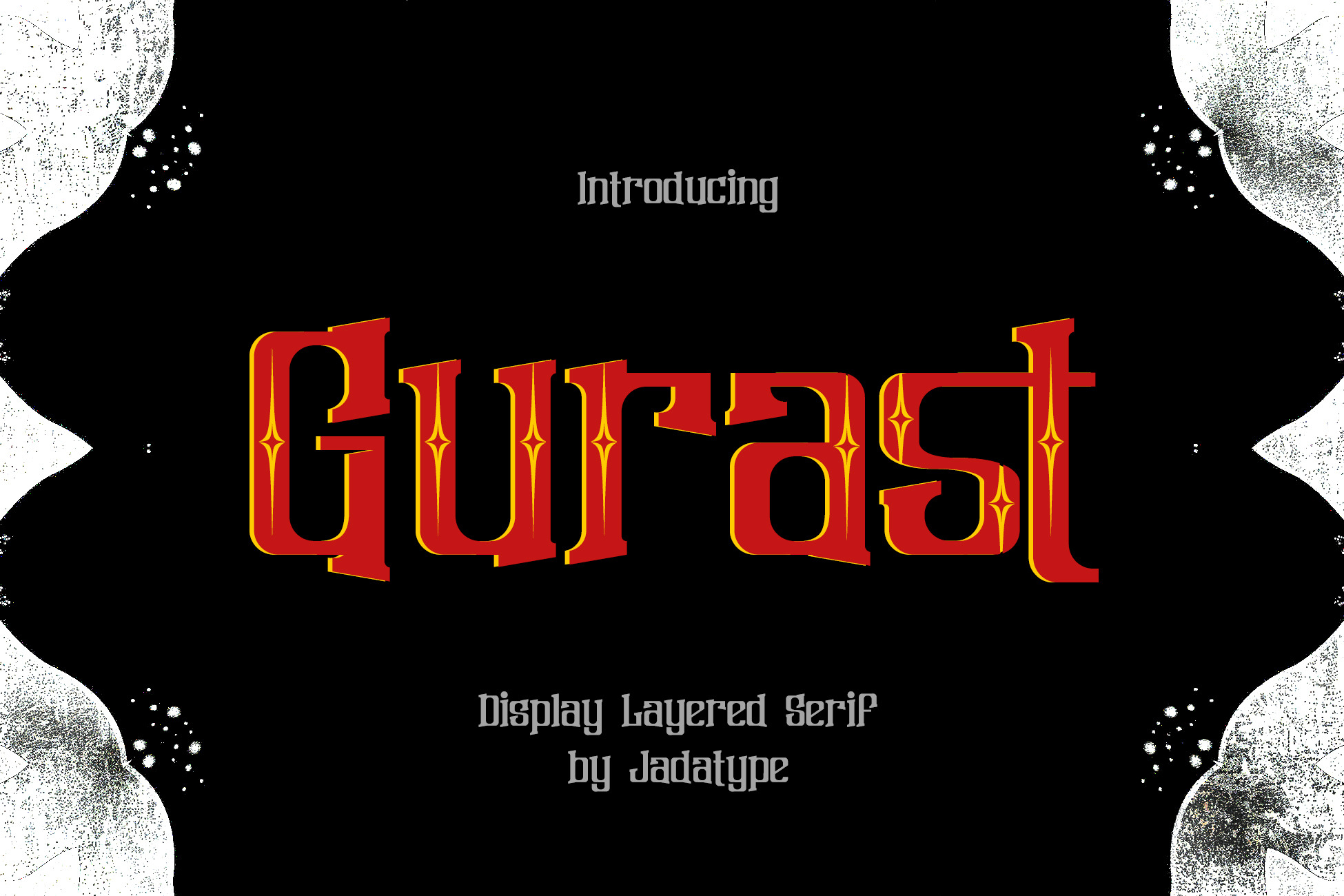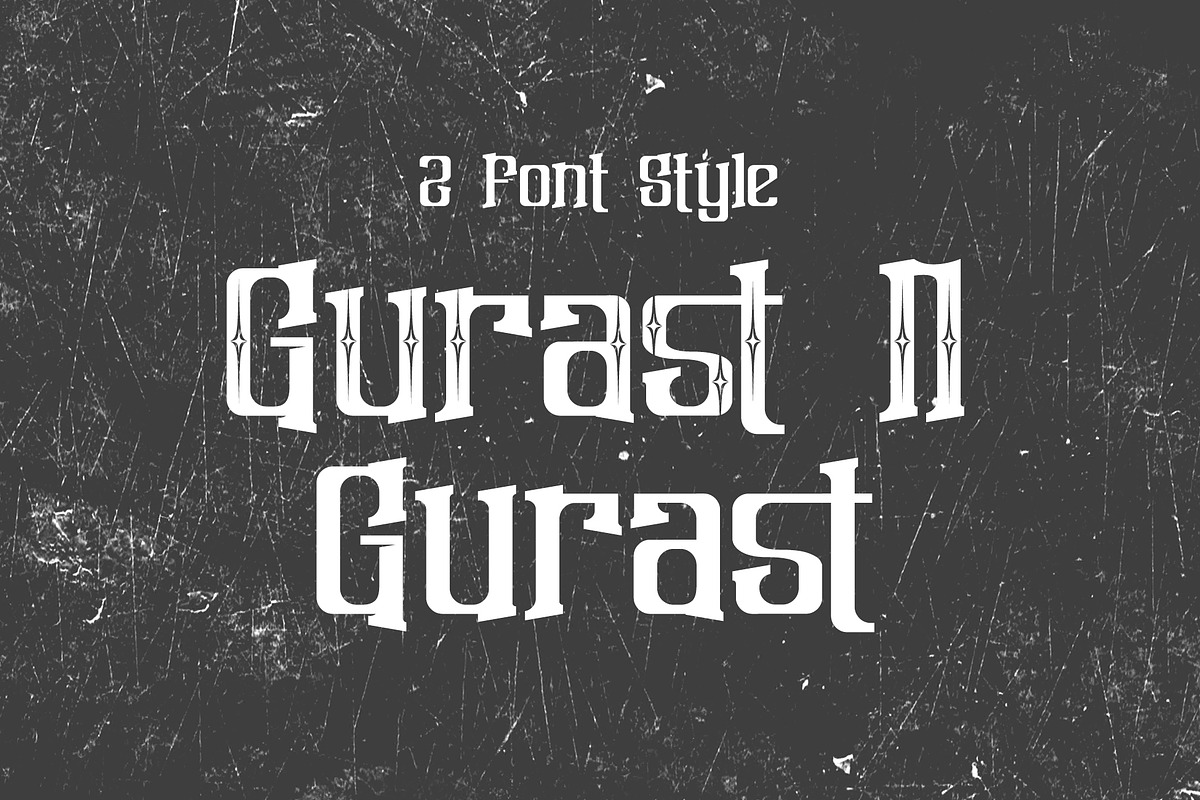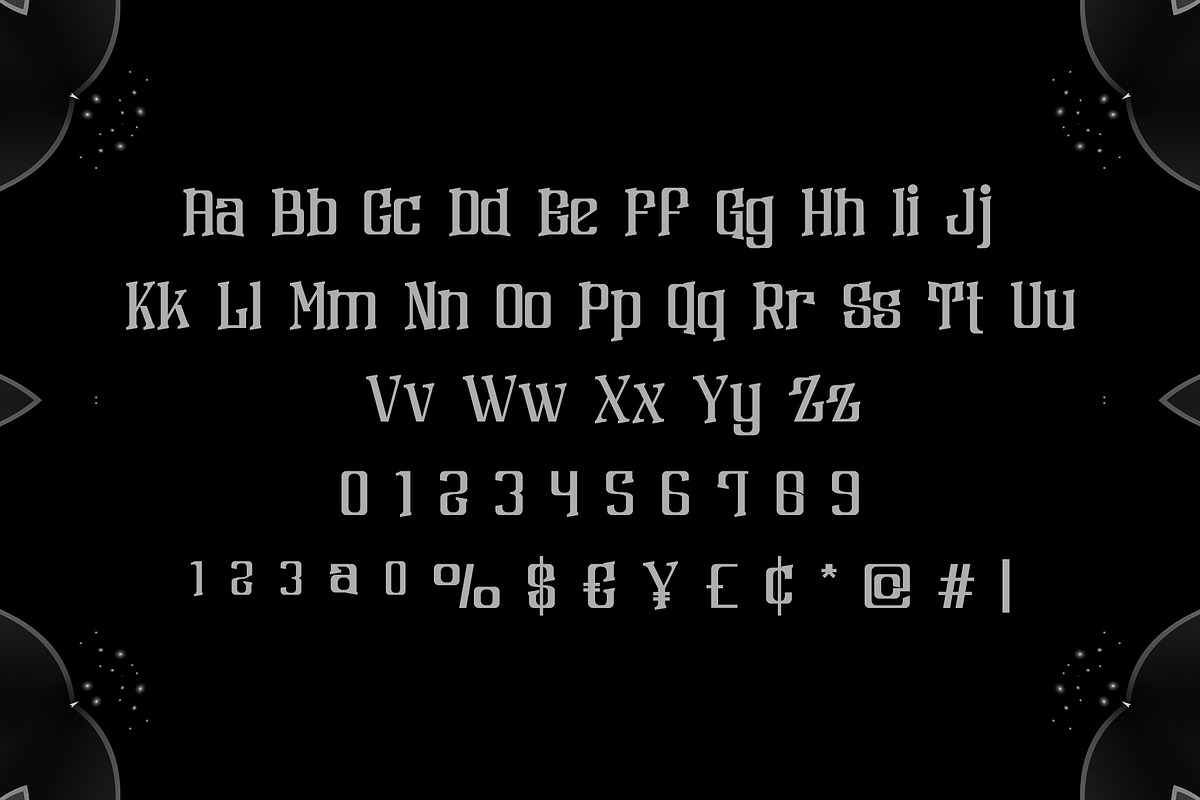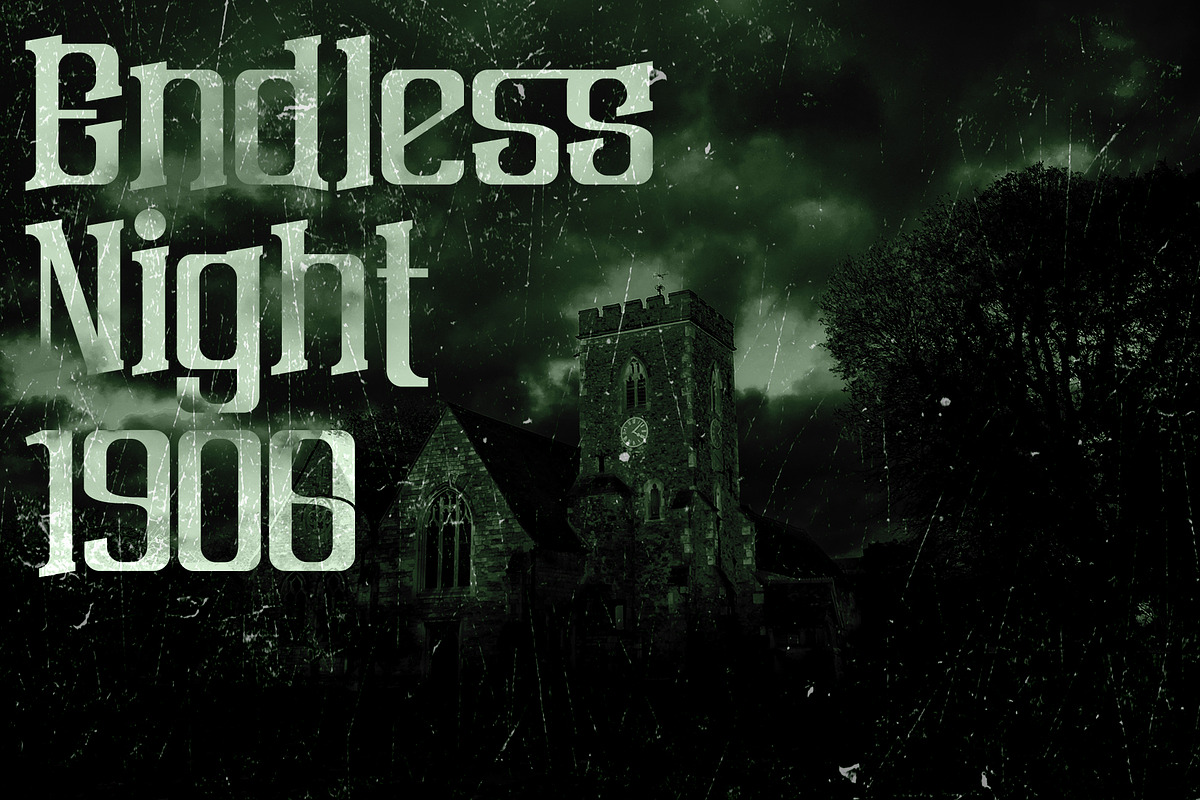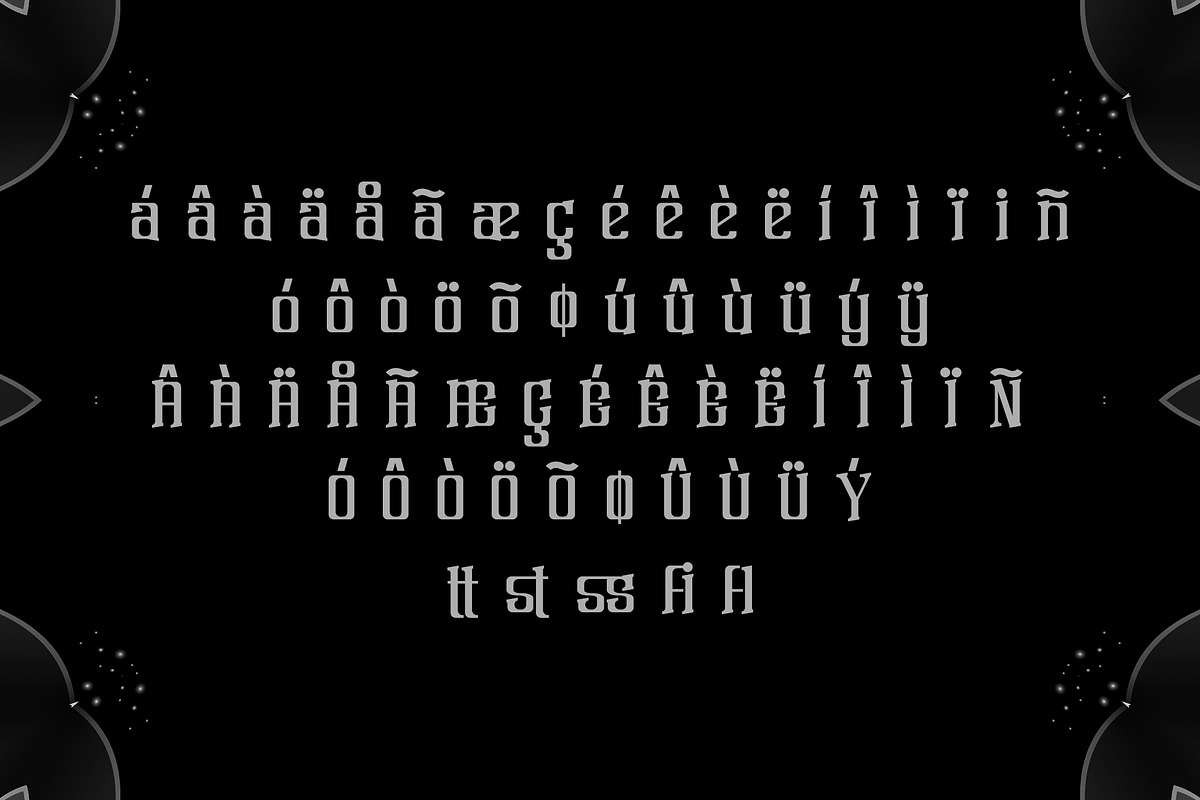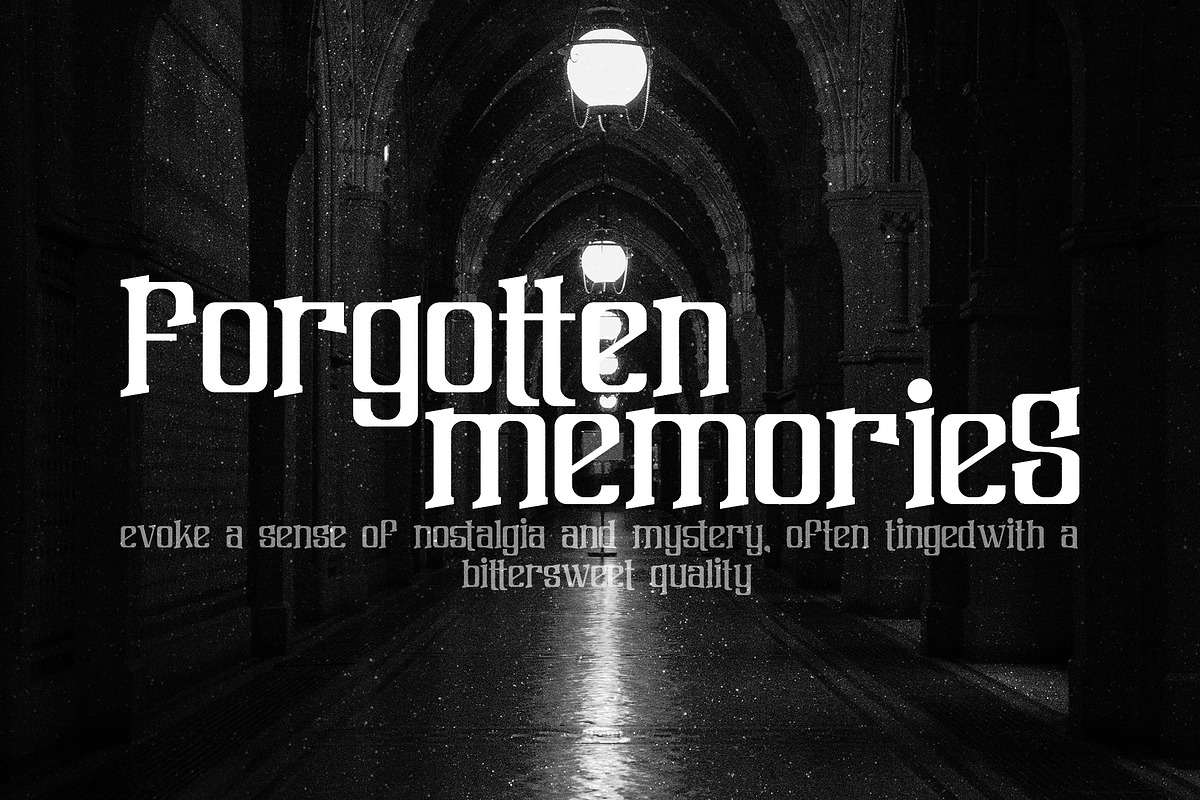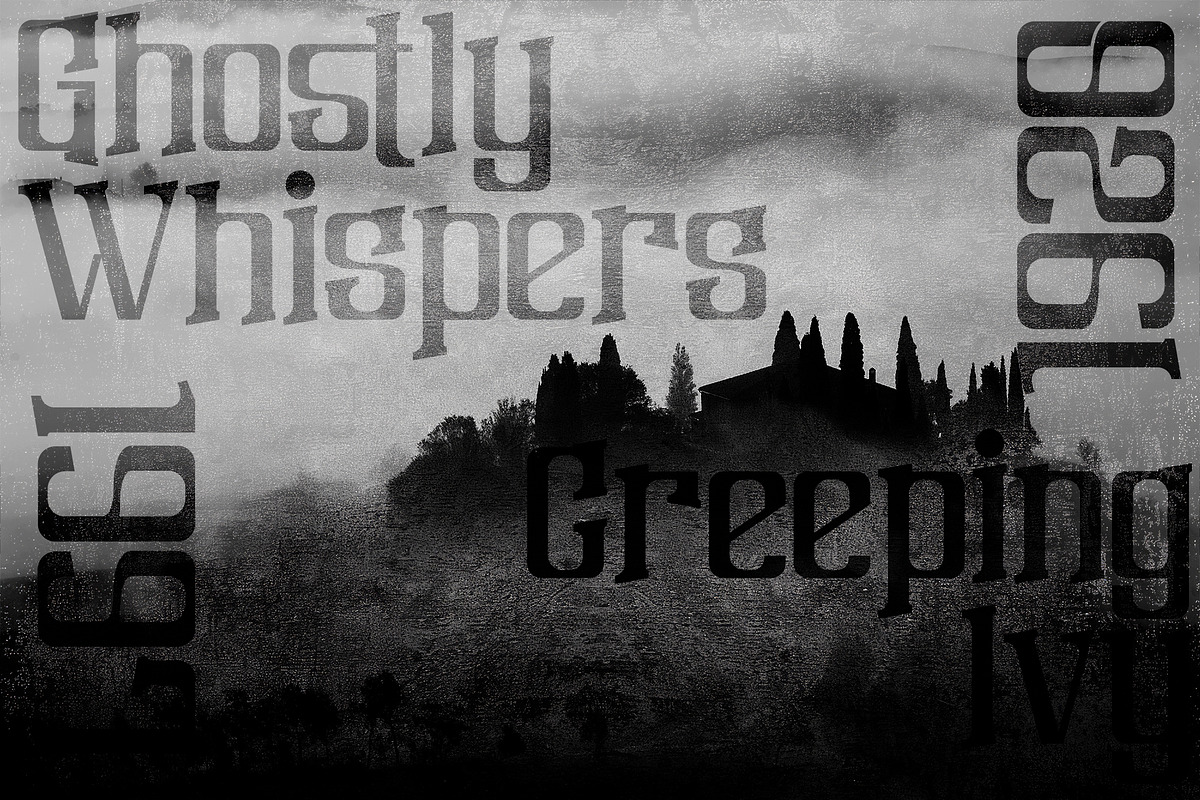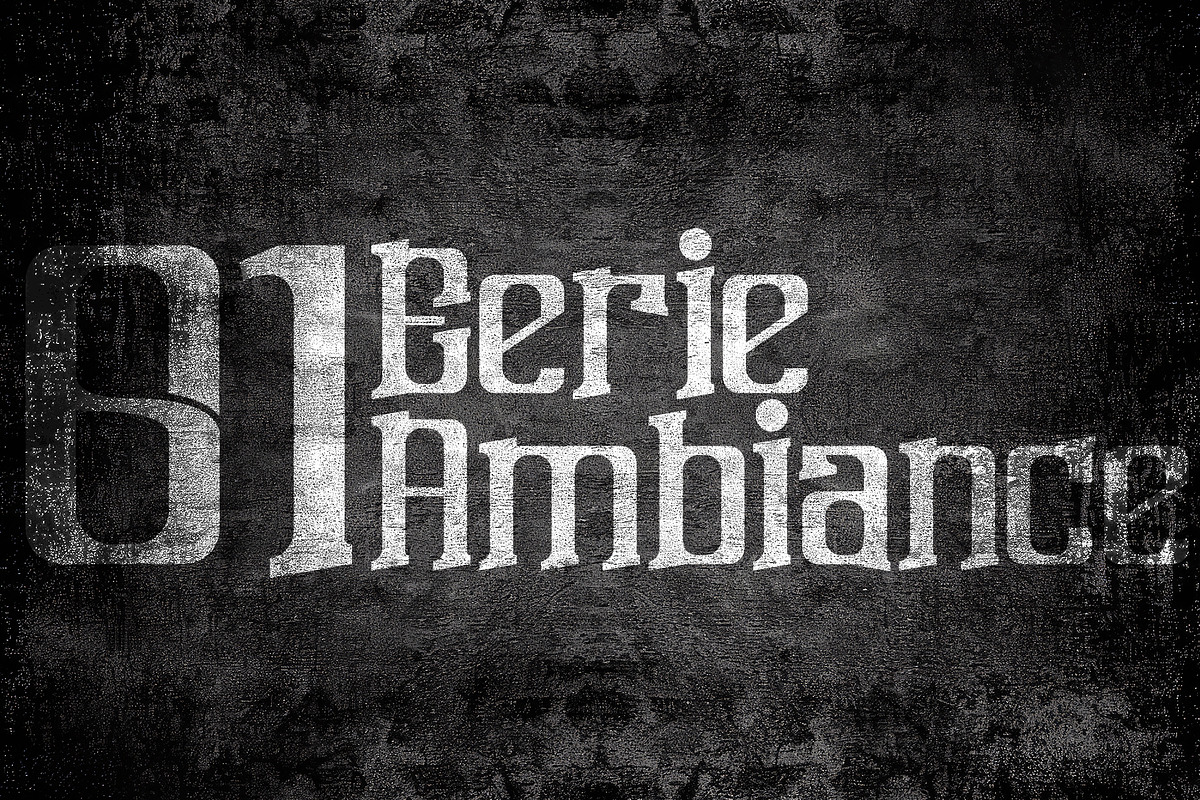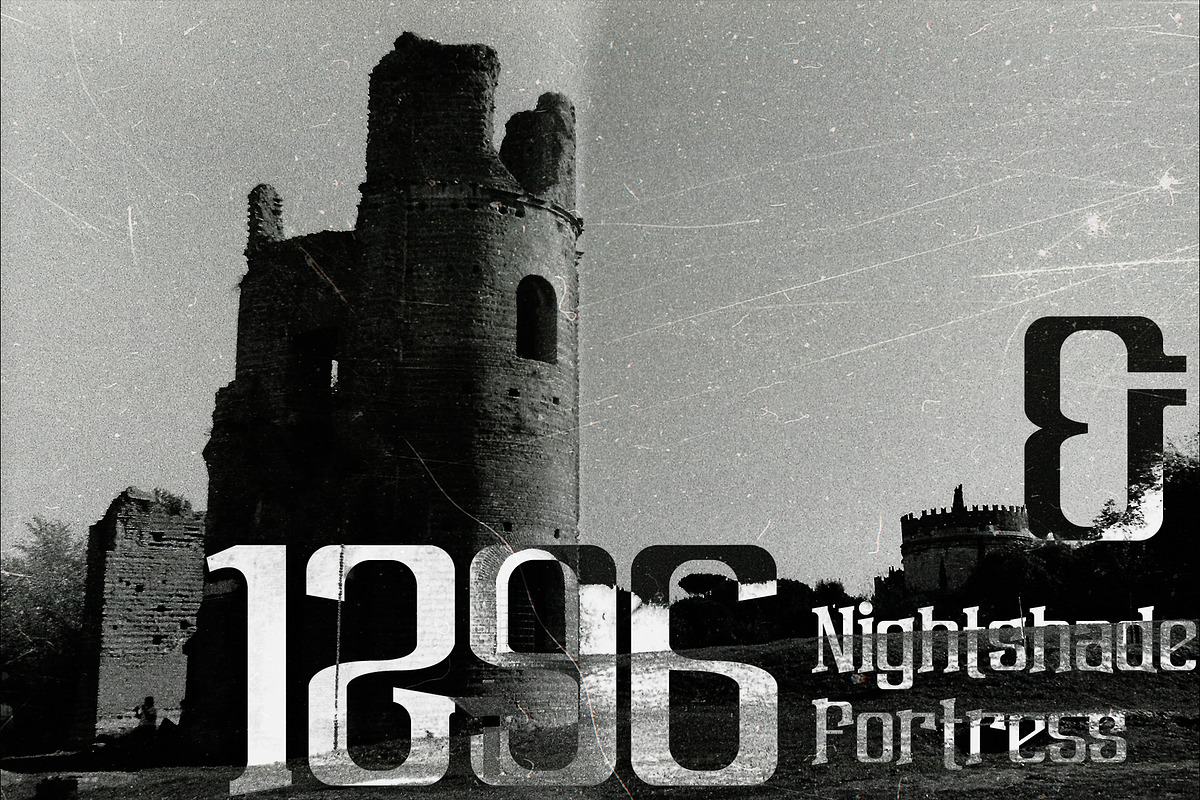
Gurast Font | Display Serif
Gurast is a Serif Font that comes with Gothic Display Style. Suitable for product, Branding, social media, logotype and so on. contains standard English letters, numbers, punctuation, and several accents that support multilingualism.